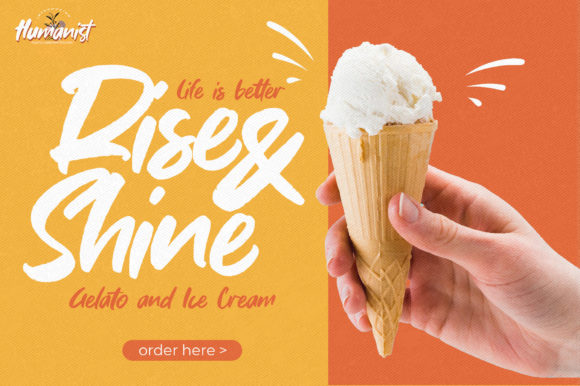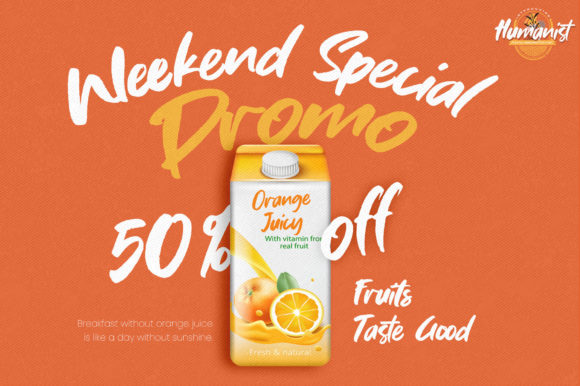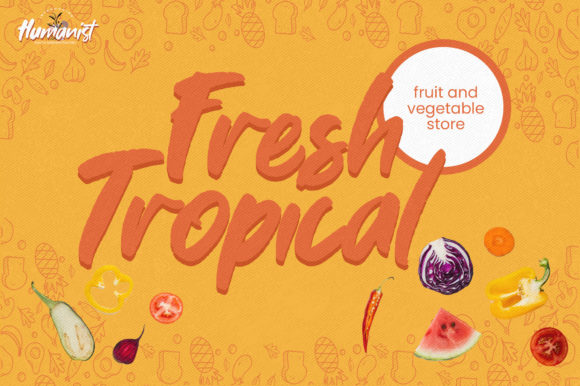
Introduction to Humanist Font
Humanist is a classy and stylish handwritten font, perfect for adding an authentic and natural feel to any creative project.
Use it for invitations, birthday cards, personal branding, logos, banners, social media posts, or more .
Key Features of Humanist Font
Why Choose Humanist Font?
Humanist Font offers exceptional quality and versatility, making it a valuable addition to your design toolkit. Whether you’re creating for personal projects or commercial use, Humanist Font delivers professional results.